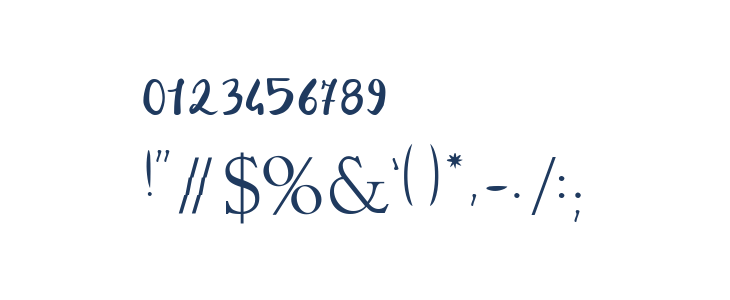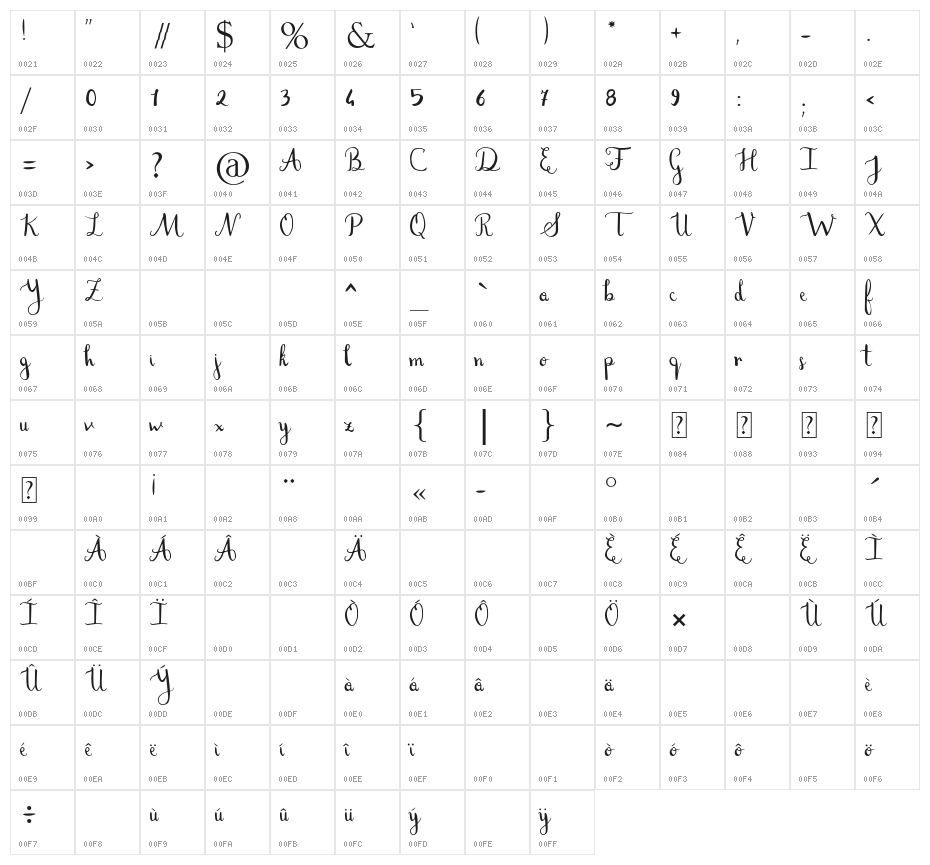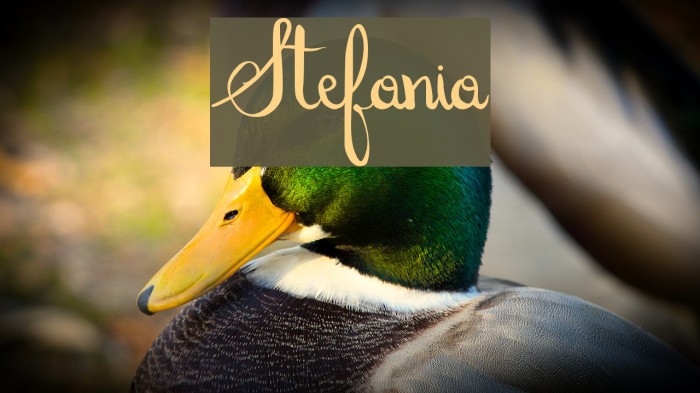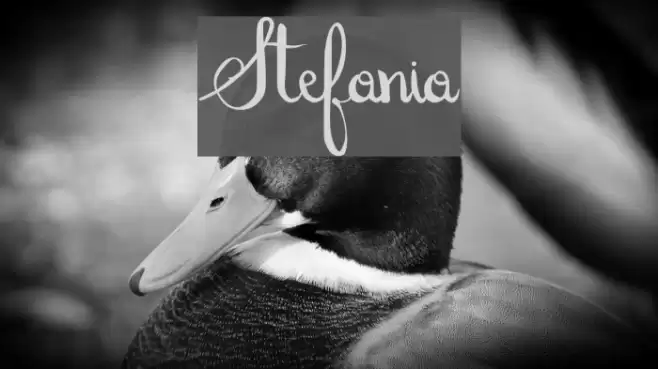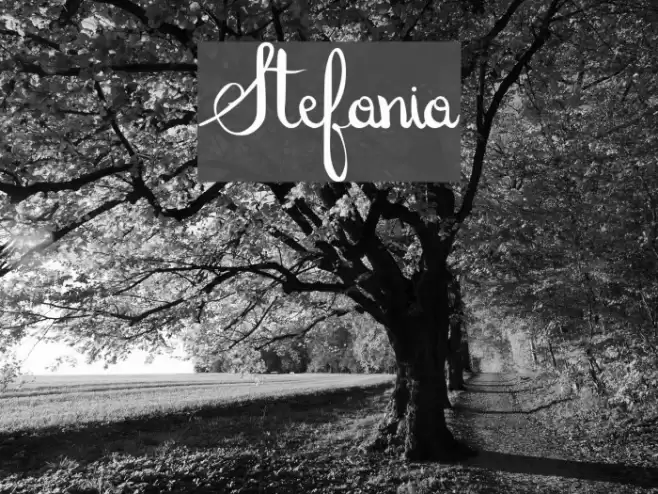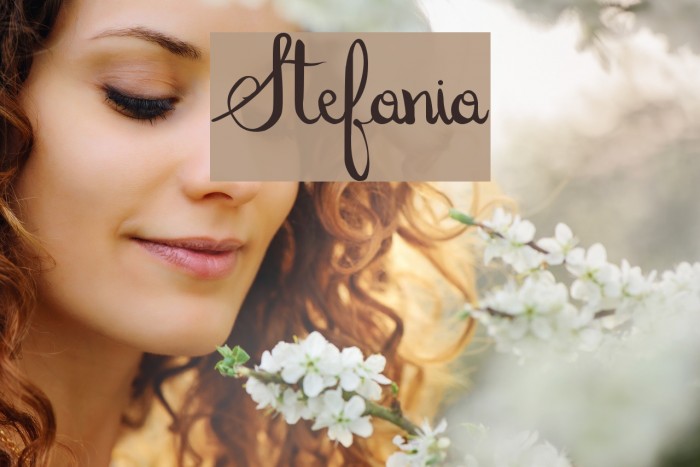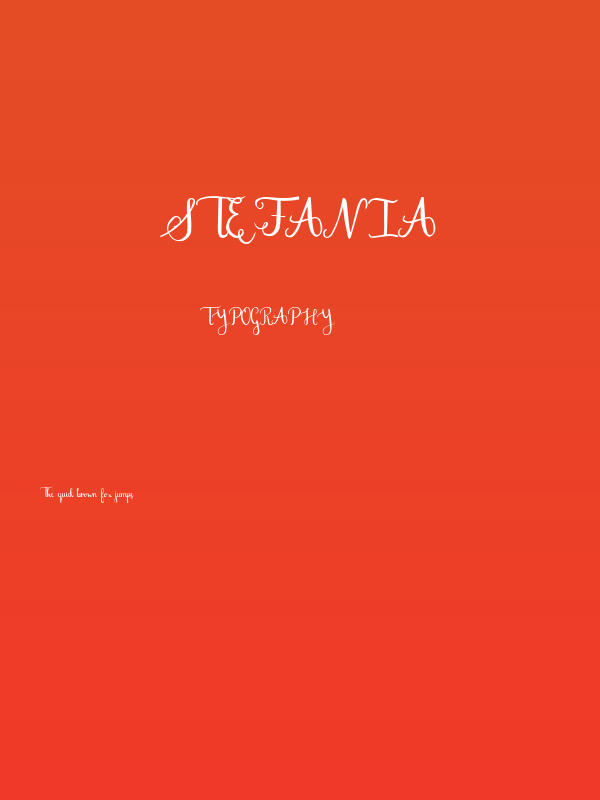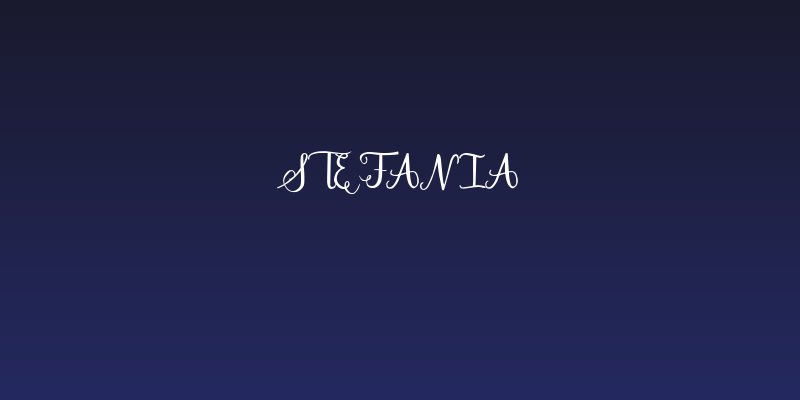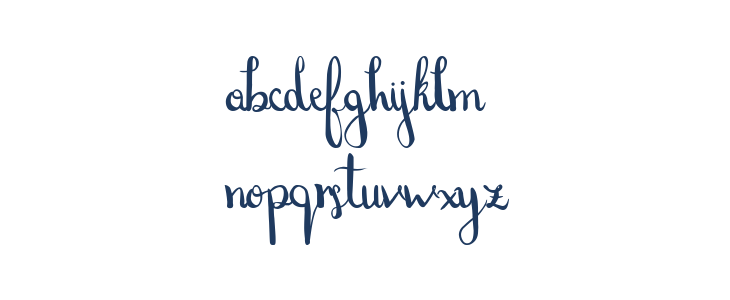
Stefania Font
Stefania Description
This font features an elegant and flowing script style, characterized by its smooth, cursive strokes and graceful curves. The uppercase letters are tall and slightly narrow, with distinctive loops and flourishes that add a touch of sophistication. The lowercase letters maintain a consistent flow, with some characters extending below the baseline, enhancing the font's fluidity. The numerals are bold and clear, matching the overall style of the alphabet. Special characters are well-integrated, maintaining the font's cohesive aesthetic. This font is ideal for projects that require a touch of elegance and personal flair.
STEFANIA UPPERCASE
STEFANIA LOWERCASE
STEFANIA OTHER CHARS